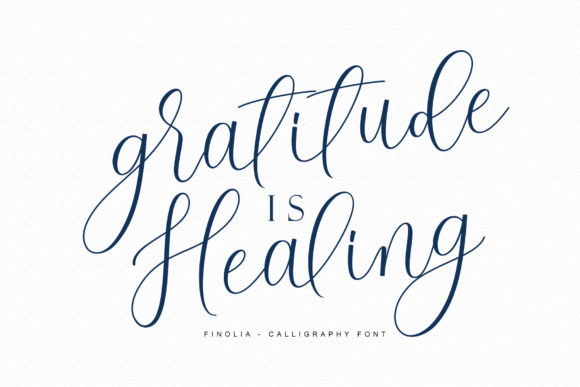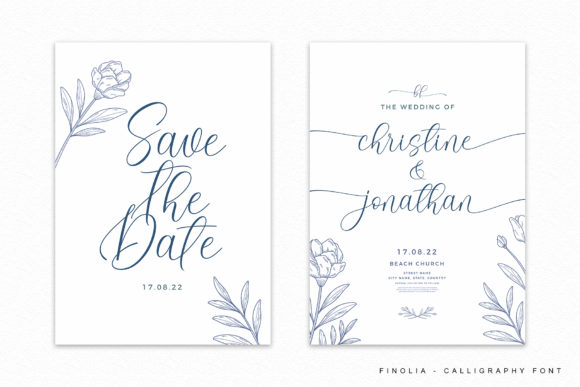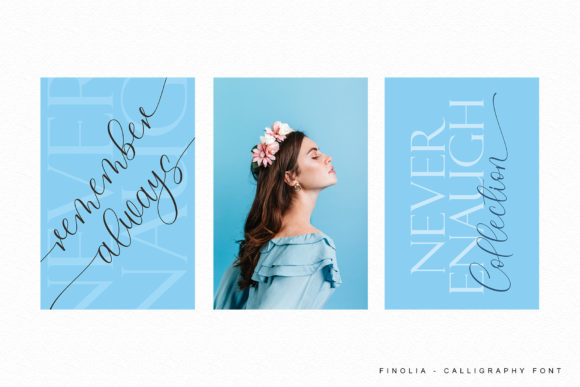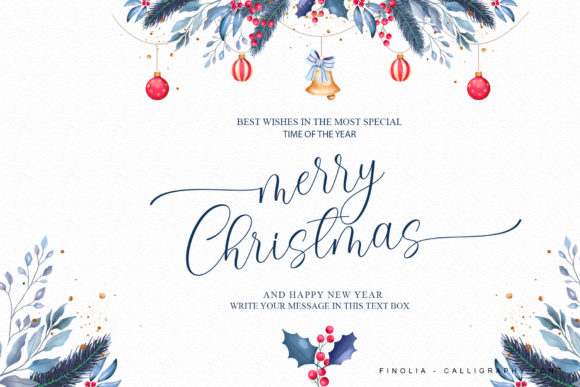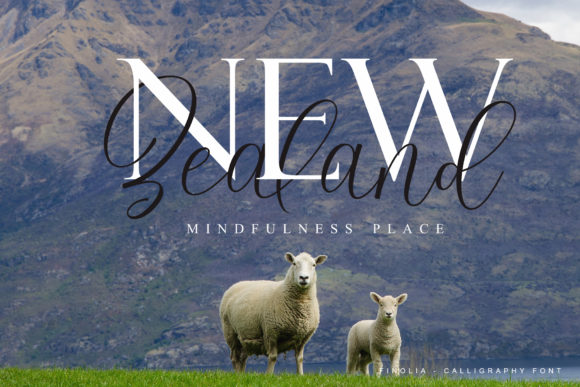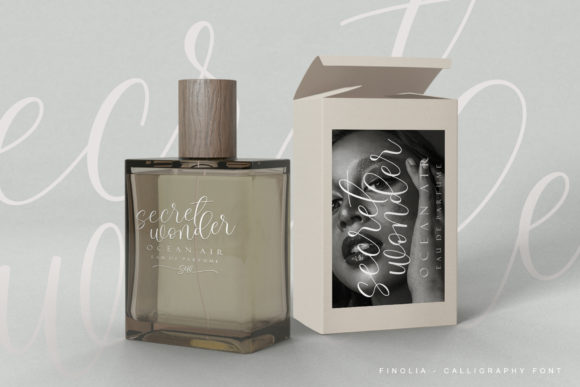
Introduction to Finolia Font
Finolia is a delicate, elegant and flowing handwritten font.
It has beautiful and well balanced characters and as a result, it matches a wide pool of designs Finolia is PUA encoded which means you can access all of the glyphs and swashes with ease.
Key Features of Finolia Font